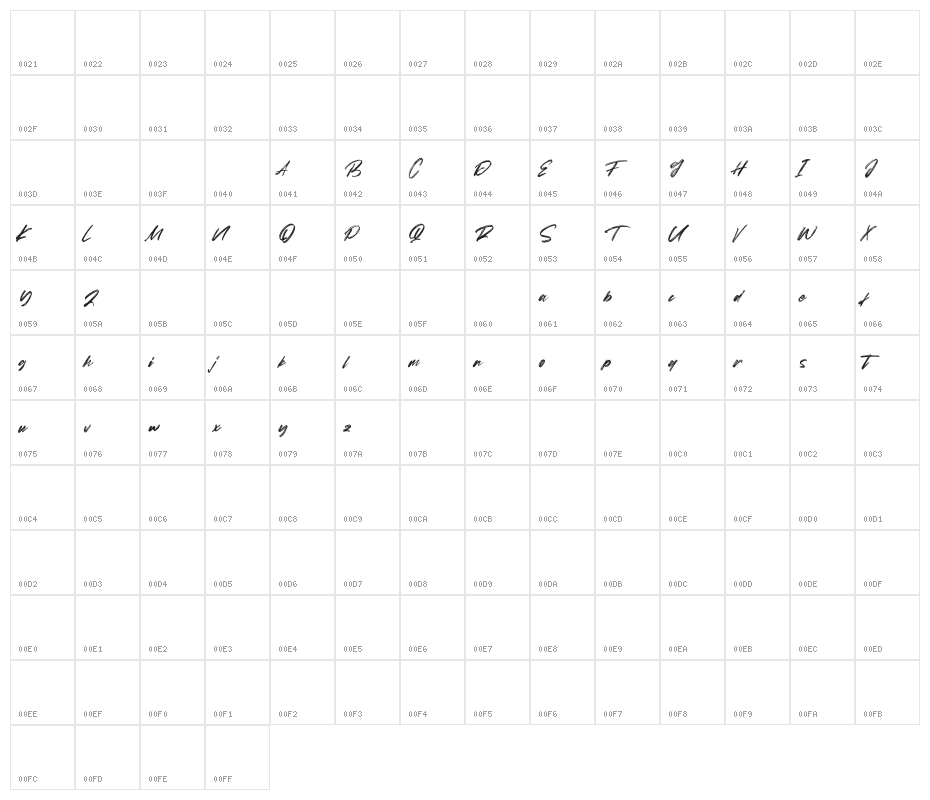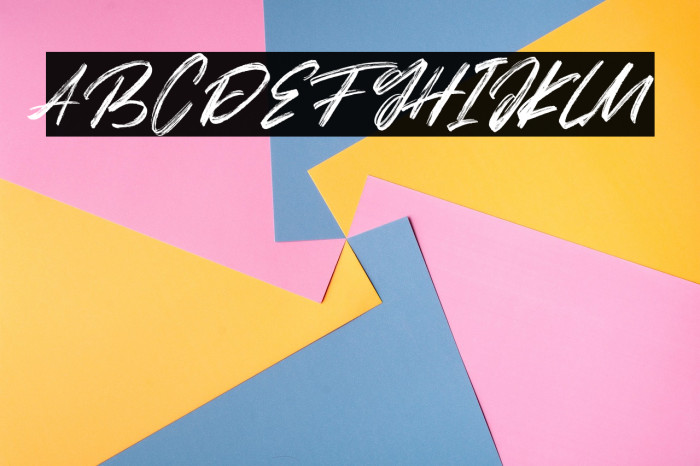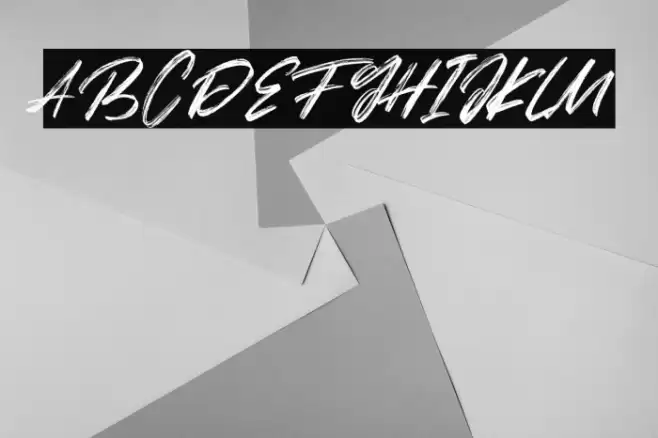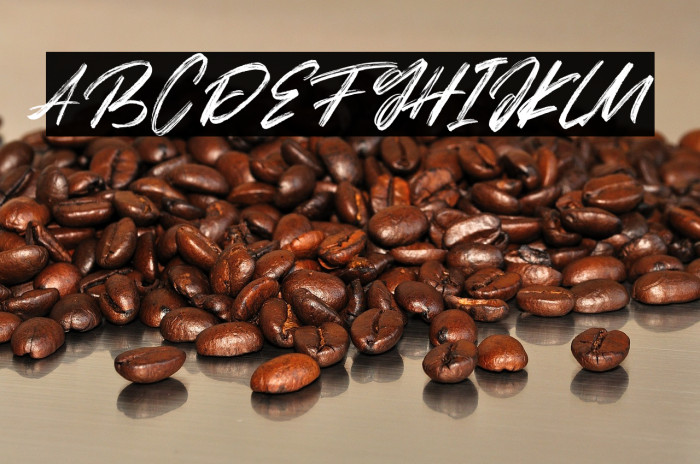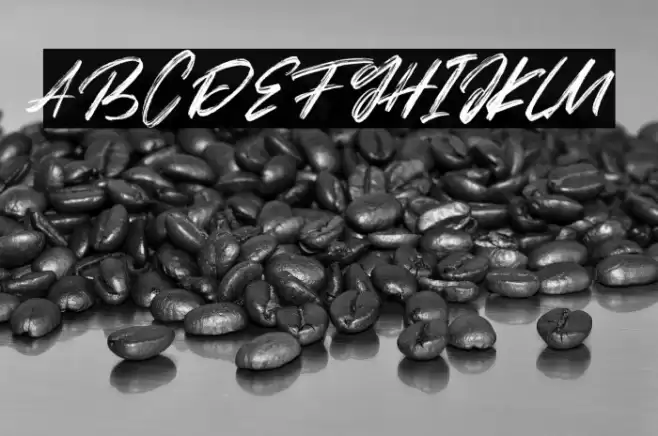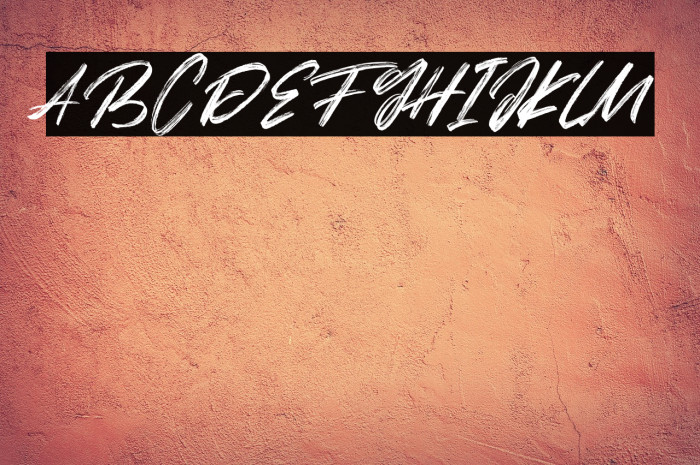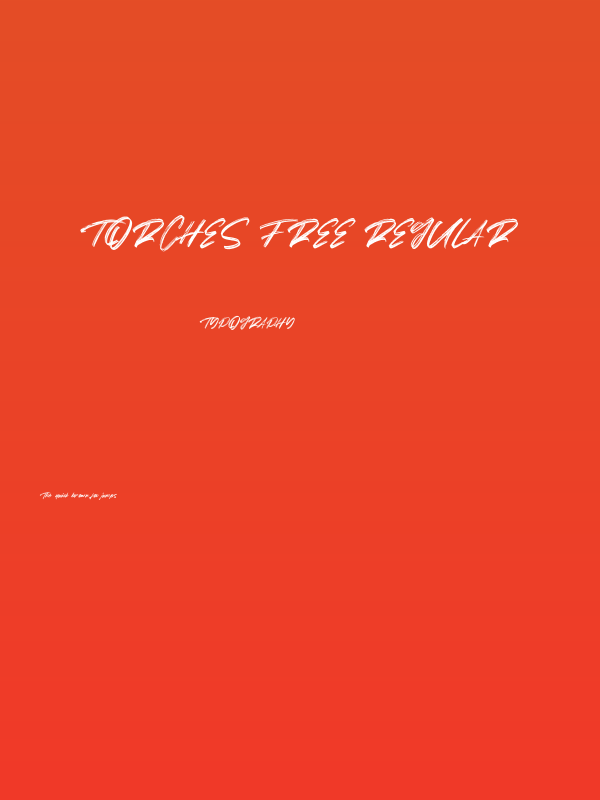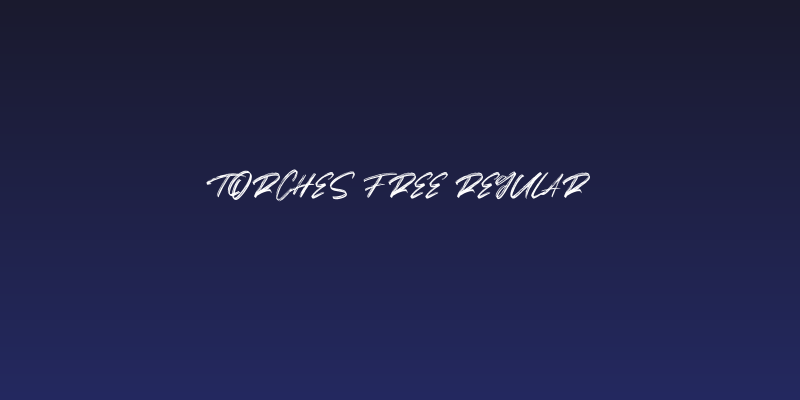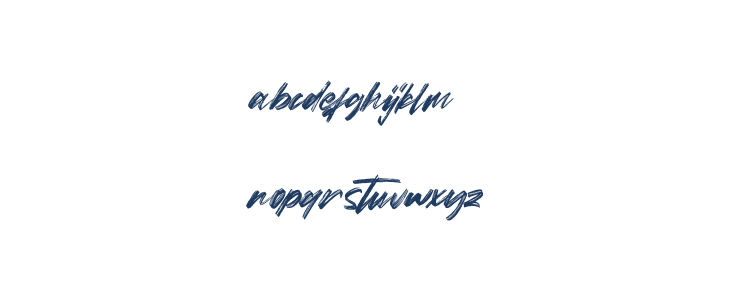
Torches Free Regular Font
Torches Free Regular Description
This font features a dynamic and energetic script style, characterized by its bold, sweeping strokes and a hand-drawn appearance. The letters are interconnected, creating a fluid and continuous flow that mimics natural handwriting. The uppercase letters are particularly expressive, with exaggerated curves and flourishes that add a sense of movement and flair. The lowercase letters maintain a consistent style, complementing the uppercase with their own unique charm. This font's textured appearance gives it a raw, artistic feel, making it ideal for projects that require a personal touch or a creative edge.
| Proposed Projects | Ideal for branding, logo design, invitations, and artistic projects that require a personal, creative touch. |